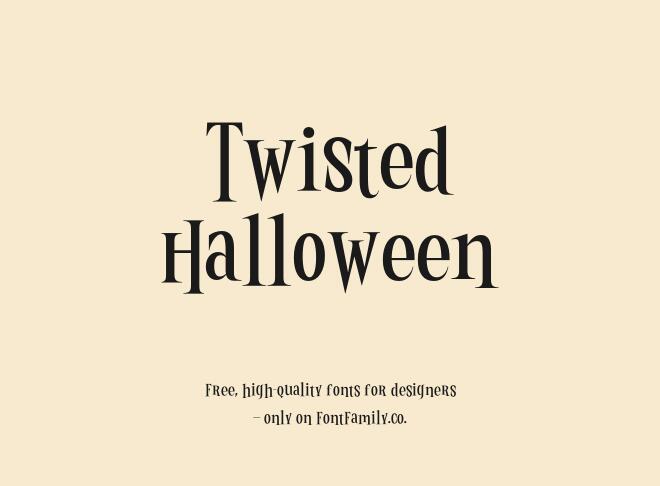
Twisted Halloween Font
Twisted Halloween Font is a decorative typeface designed by Frightful Foundry. This playful, yet retro-styled font is the perfect choice for all your spooky design needs. The twisted, gnarled strokes capture the spirit of Halloween, making it ideal for party invitations, posters, and any Halloween-themed design work. Its unique character set is reminiscent of classic horror movie titles, adding an element of nostalgia. While it may seem unsettling at first glance, Twisted Halloween Font is surprisingly versatile, with a distinct personality that can add character to a variety of designs. Despite its seasonal name, this font can be used year-round for projects that require a touch of the macabre or the extraordinary. Add a playful twist to your design work with Twisted Halloween Font!